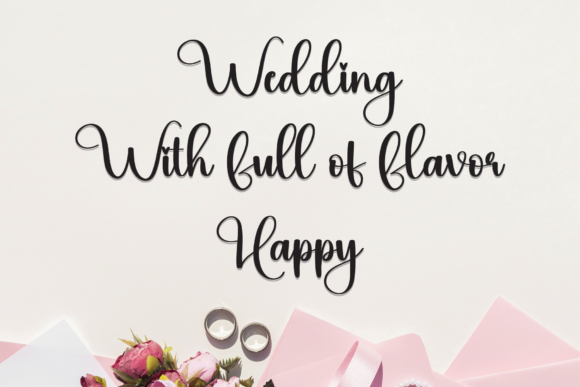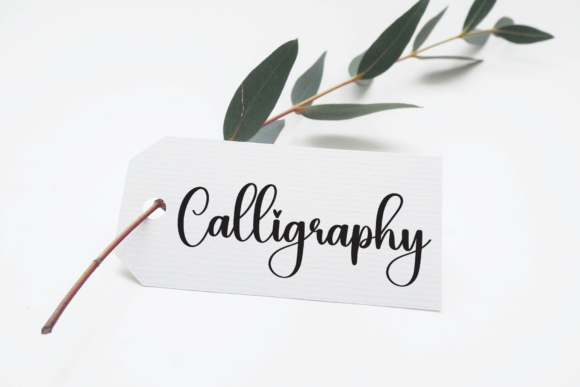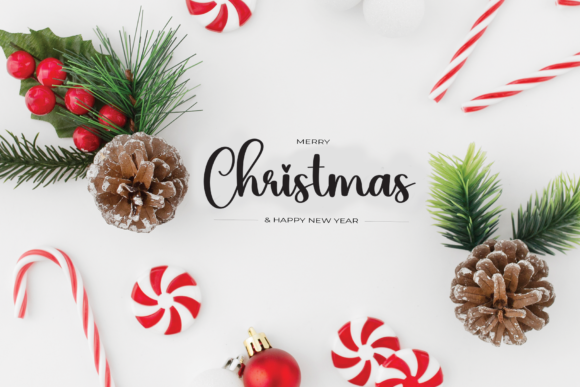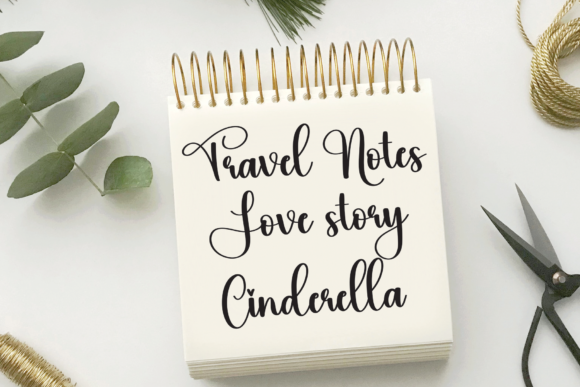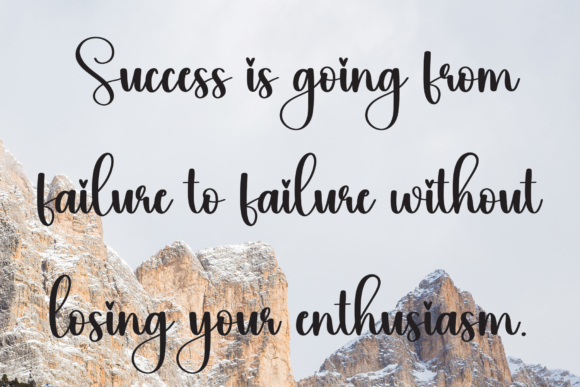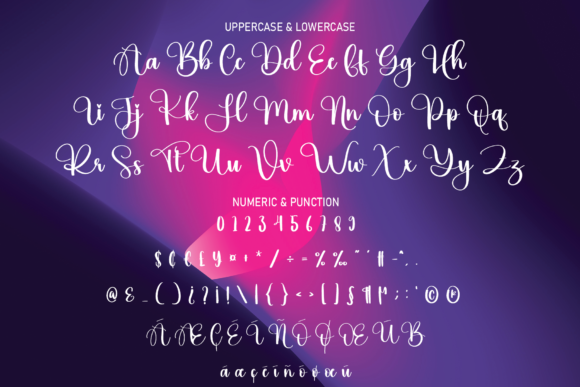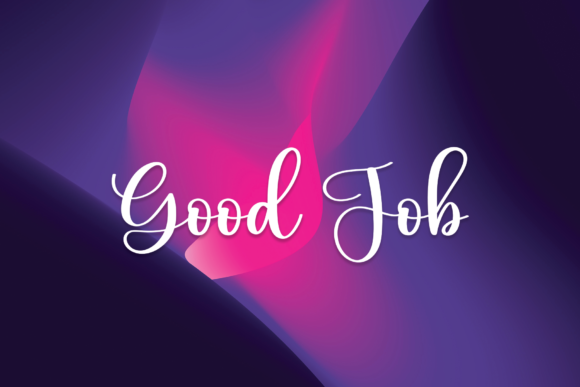
Lasting Font
About Lasting Font
Lasting is a delicate and fashionable script font, meticulously crafted to add a touch of sophistication to your designs. This versatile typeface is well-suited for a range of branding projects, including logos, t-shirt printing, creative products, and more. Lasting has the ability to elevate your designs, making them look extraordinary in a variety of contexts.
The delicacy of Lasting lends an elegant and refined quality to the script, making it particularly suitable for projects that demand a fashionable and stylish aesthetic. Whether applied to logos for premium brands, custom t-shirt designs, or creative products, Lasting brings a level of sophistication that captures attention.
Lasting’s versatility allows it to seamlessly integrate into diverse design contexts, providing a timeless and fashionable appearance. Whether you’re working on a high-end branding project or creating custom merchandise, this font ensures that your designs stand out with a delicate yet impactful flair.
In summary, Lasting is more than just a font; it’s a delicate and fashionable script that enhances the visual appeal of your branding projects. Its versatility makes it suitable for various applications, ensuring that your designs look extraordinary and make a lasting impression in any context. With Lasting, your creative endeavors are enriched with a touch of sophistication and style.